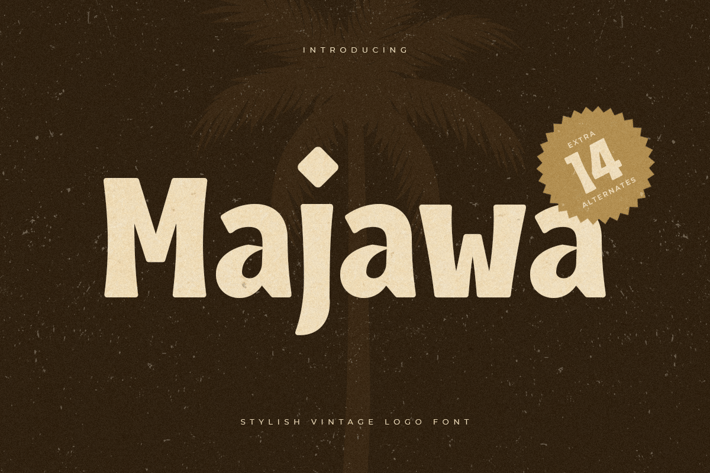
Majawa - Stylish Vintage Logo Font
Majawa is Modern Vintage Logo Font is a well-balanced contemporary font with a fancy, unique, and versatile vintage serif, font that you can combine to get any variations and unique shapes easily just in seconds with choose alternates of them. It is a serif display font with moderate contrast that perfect for branding projects, logo, wedding designs, social media posts, advertisements, product packaging, product designs, label, photography, watermark, invitation, stationery, and any projects, it makes with a high level of legibility.